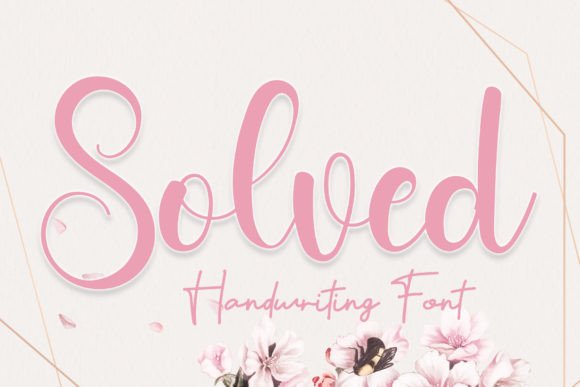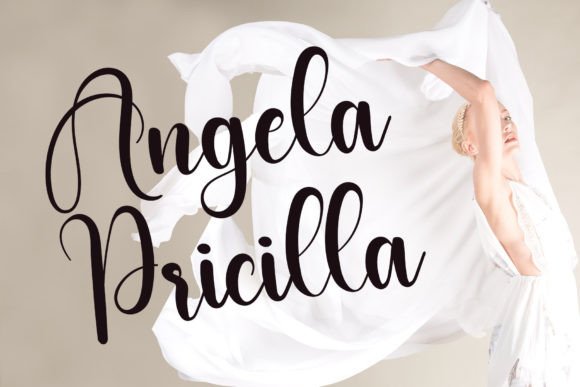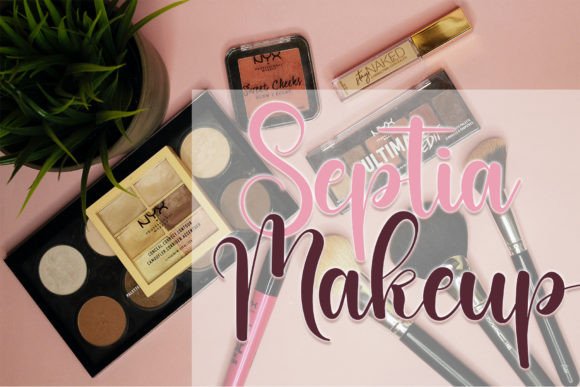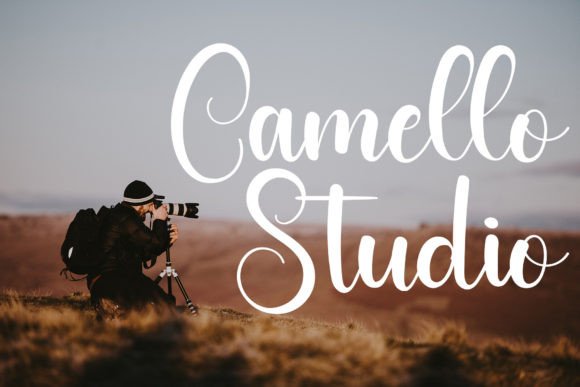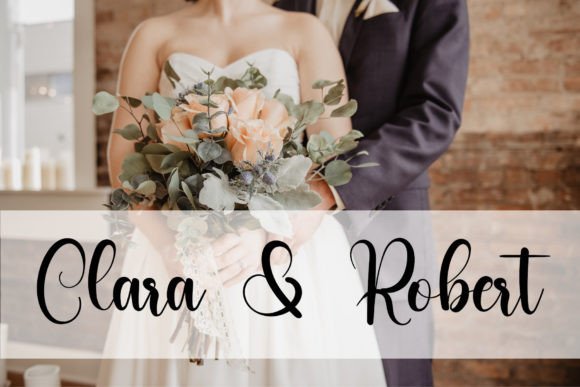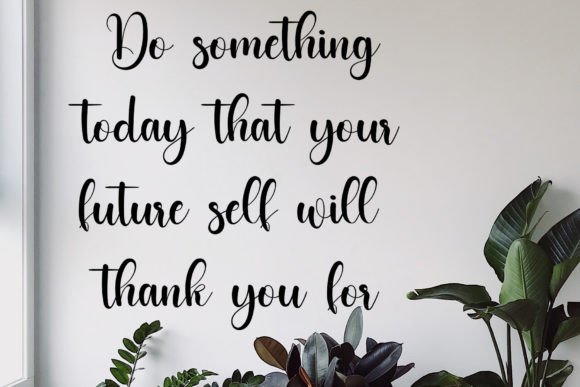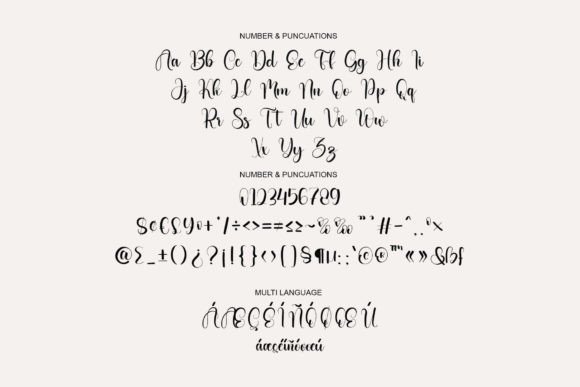
Solved Font
About New Years Font
New Years Font is a delicate and elegant handwritten typeface that brings a smooth, flowing style to your design projects. Featuring beautifully balanced characters, this font enhances a wide variety of creative works. Whether you’re creating wedding invitations, branding materials, or artistic prints, New Years adds a refined and graceful touch that makes your designs shine.
Elegant and Flowing Letterforms
New Years offers flowing strokes and well-crafted characters that blend sophistication with readability. Its natural handwritten style ensures that your text looks inviting while maintaining clarity. This makes it a perfect choice for projects that need both beauty and legibility.
Ideal Uses for New Years Font
This font is suitable for many design applications, including:
• Wedding invitations and save-the-date cards
• Brand logos and luxury packaging
• Social media graphics and digital marketing
• Personalized event signage and stationery
New Years fits seamlessly with both formal and creative design themes.
Why Choose New Years Font?
Designers love New Years for its:
• Smooth, flowing strokes that convey elegance
• Balanced and legible letterforms
• Versatility across print and digital platforms
These features make New Years both a practical and stylish font for diverse creative projects.
Bring Grace and Charm to Your Designs
Typography shapes your design’s emotion and tone. New Years adds a delicate, graceful personality, perfect for weddings, branding, and other special occasions. It helps your message stand out with warmth and style.
In summary, New Years Font is an elegant and flowing handwritten script that elevates any creative project. Ideal for designers seeking to add sophistication and charm to weddings, branding, or personal works. Add New Years to your font library and create beautiful, memorable designs.